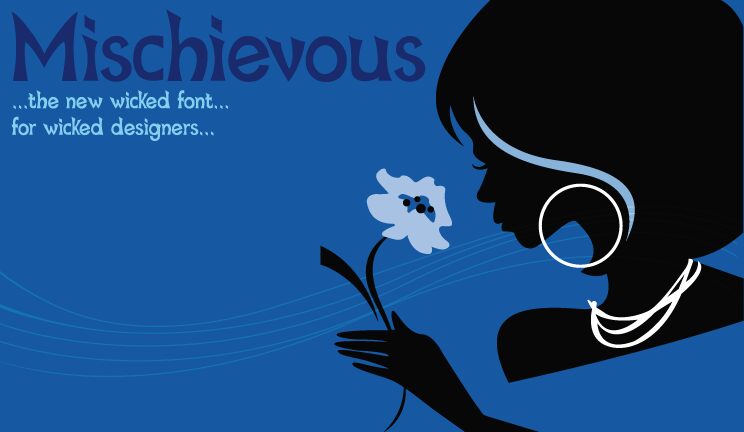
Mischievous Sans Serif from Adobe Systems Incorporated is a free decorative display font with an eccentric, theatrical silhouette. Stroke widths shift sharply, and many letters end in pointed, blade-like tips. Uneven curves and lively proportions keep the lettering deliberately restless.
Folklore, comic mischief, and offbeat fantasy are natural subjects for this design. It suits children's book covers, game graphics, event posters, and candy packaging, especially when the project favors wit over polish. Those recurring spikes can echo horns, leaves, or crooked costume details in the surrounding artwork.
Mischievous Sans Serif
Adobe Systems Incorporated